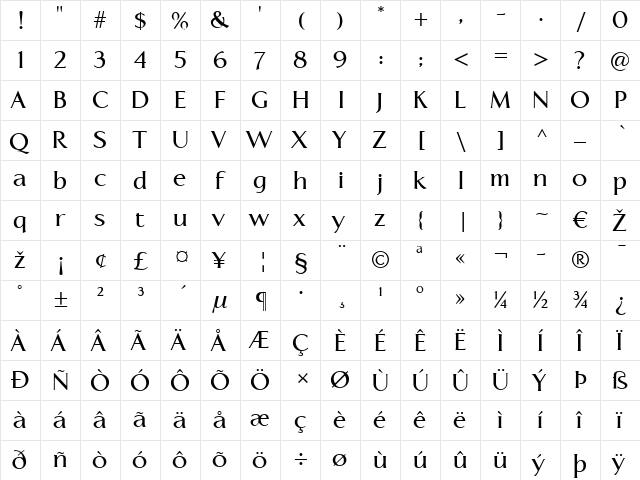
LTAperto SemiBold Regular
Design Context for LTAperto SemiBold Typeface
LTAperto SemiBold offers clean, dependable letterforms without strong stylistic allegiance, making it a practical choice for designers who need flexibility. Its bold stroke weight gives it real presence on the page.